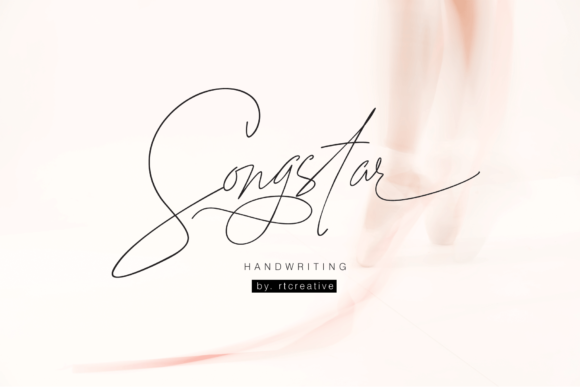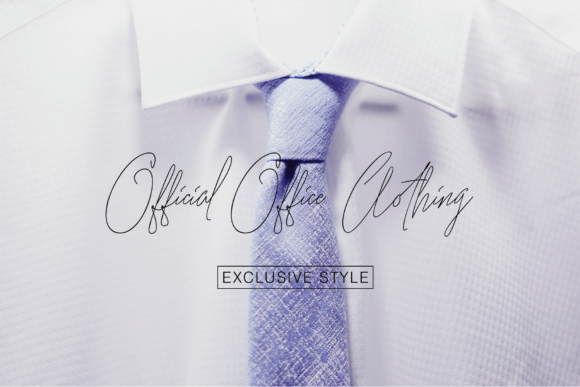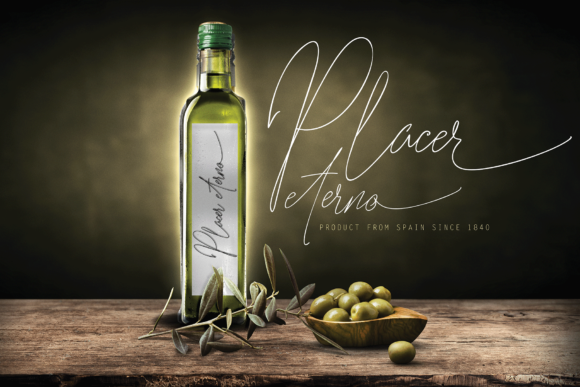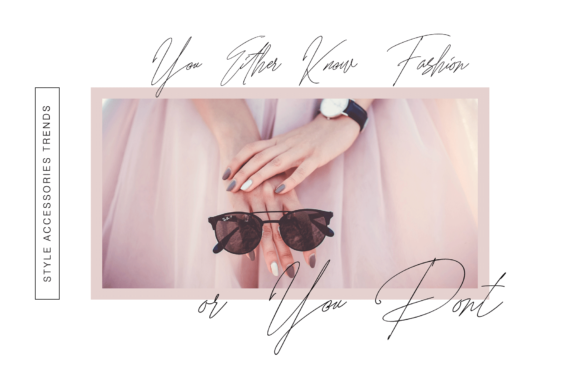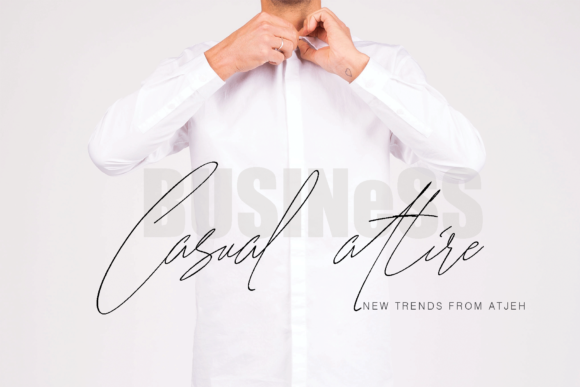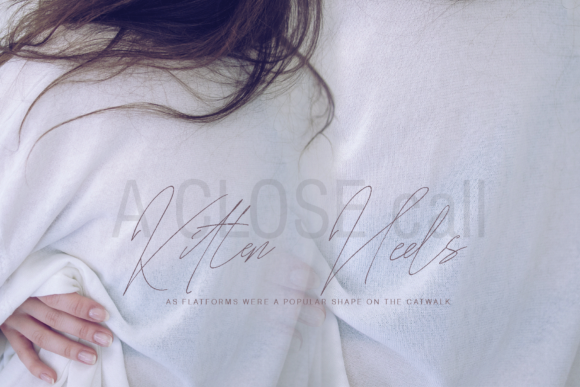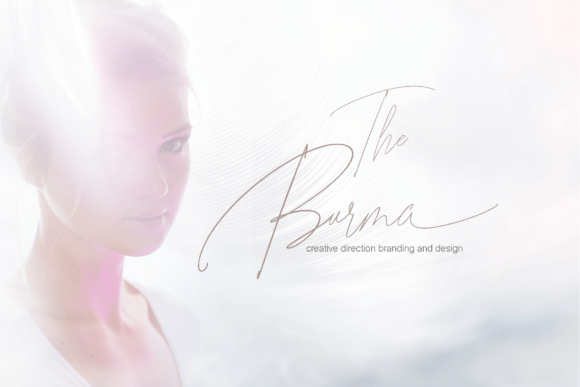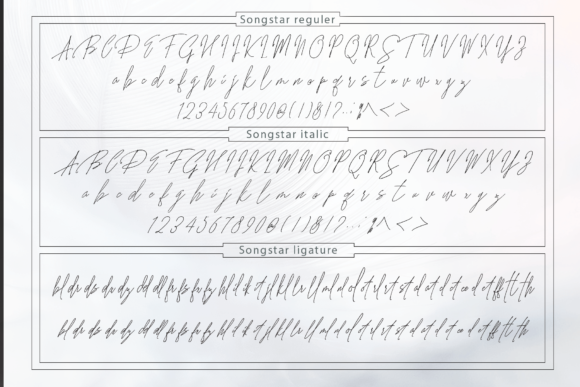
Songstar Font
Songstar Font duo is purely handwritten and has natural characteristics. It is perfect for invitations, signatures, blogs, social media, business cards, product brands and much more!
elegant has two sets of letters, namely Stylistic standard and Stylistic Alternate. and including uppercase and lowercase letters, numbers and punctuation, are also equipped with ligature.